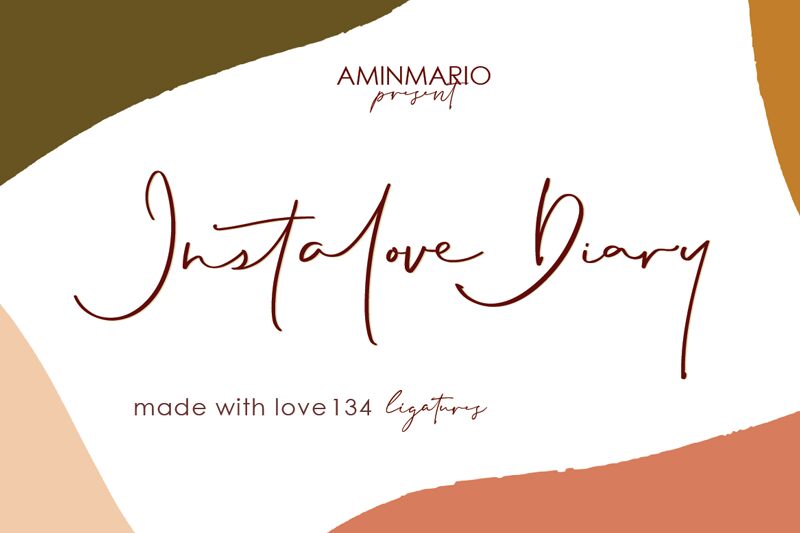
Instalove Diary
Meet Instalove Diary, the latest handwritten signature font by AMINMARIO 2020. With its light weight and elegant curves, this font is perfect for adding a personal touch to your creative projects. Whether you're designing wedding invitations, branding for a boutique business or creating social media graphics, Instalove Diary will add that extra level of sophistication and charm that will make your designs stand out. This versatile font is suitable for both print and digital mediums, making it an essential addition to your collection. Let Instalove Diary be your go-to semi-bold font for all things chic and stylish!